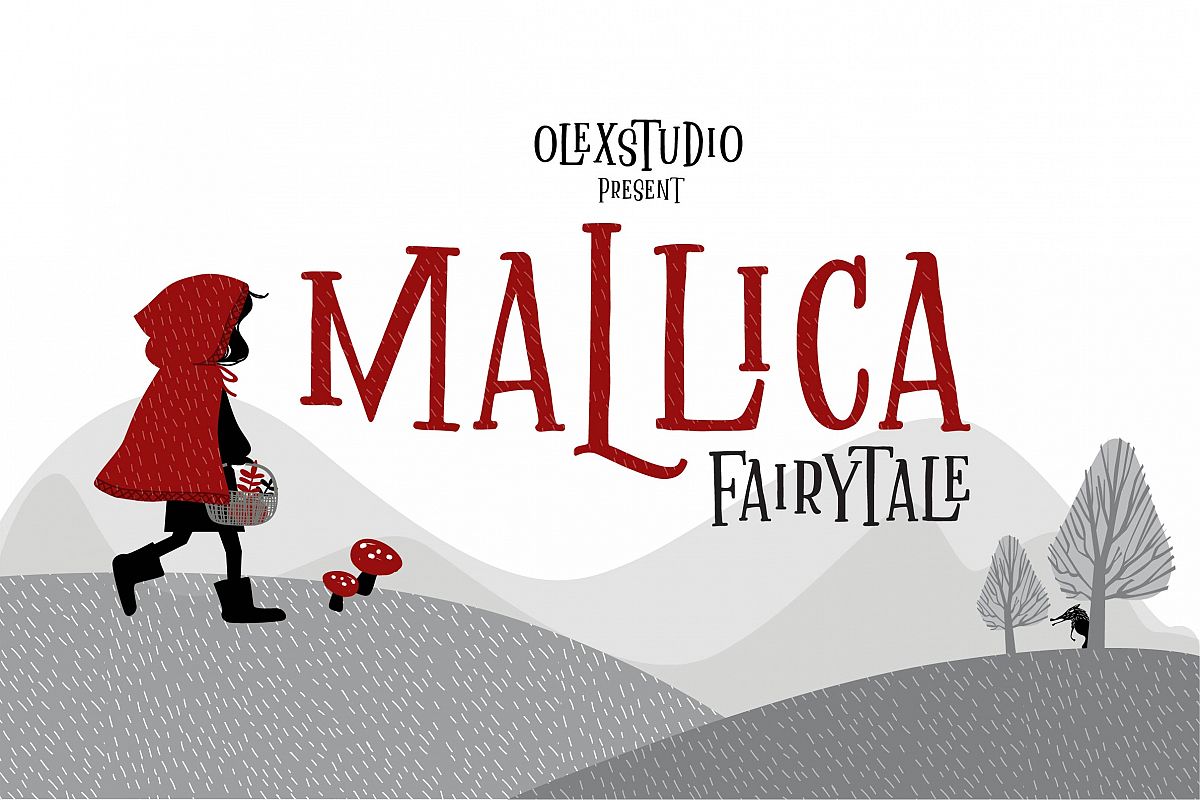
MALLICA FAIRYTALE
MALLICA Fairytale is a beautiful Display comic font Typeface, This Font will look gorgeous on all your designs, book,
branding materials, logo's, t-shirt, poster, baby fashion product, comic, quotes and all project design other.
MALLICA Fairytale contains standard characters, lowercase & Uppercase same, numbers, punctuation,